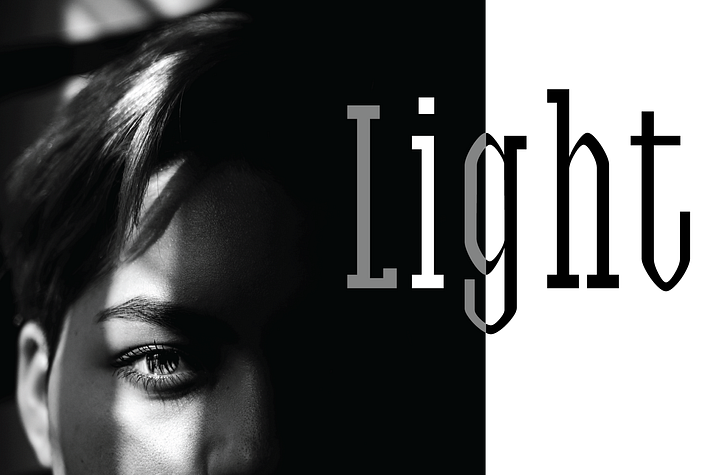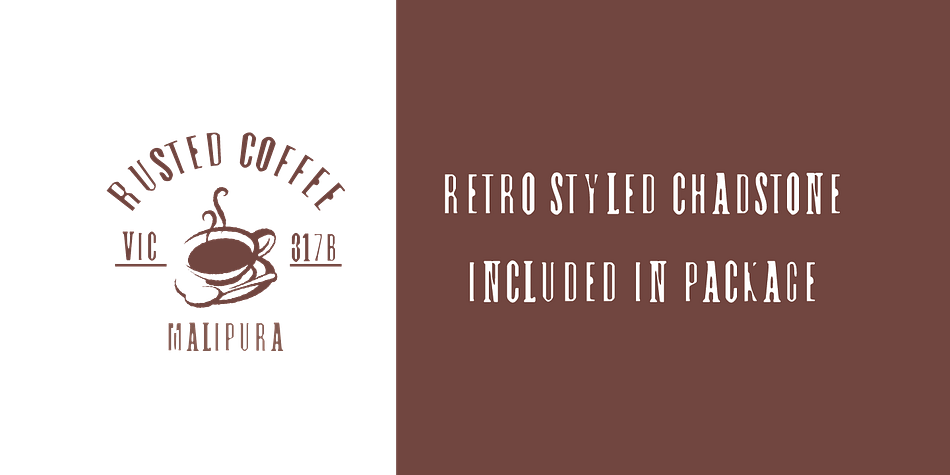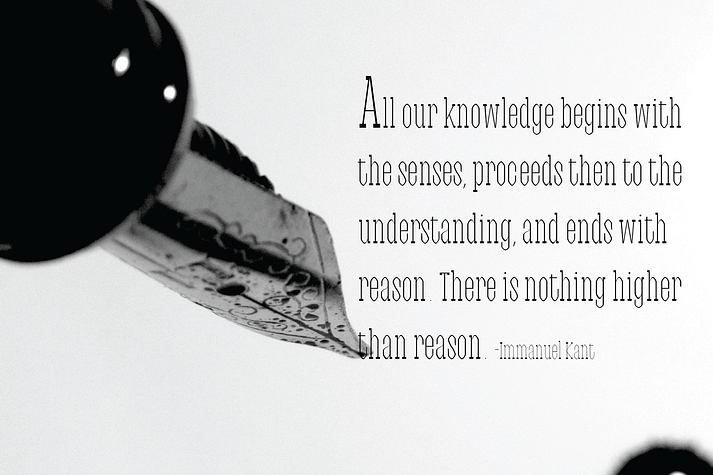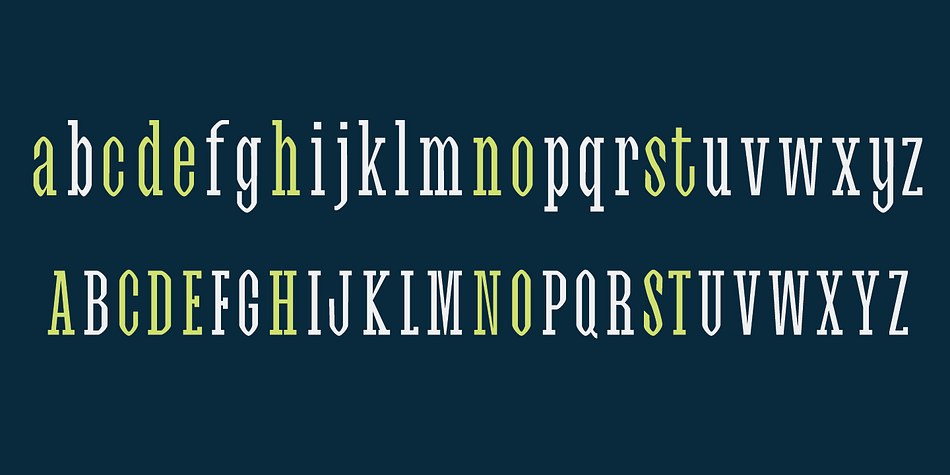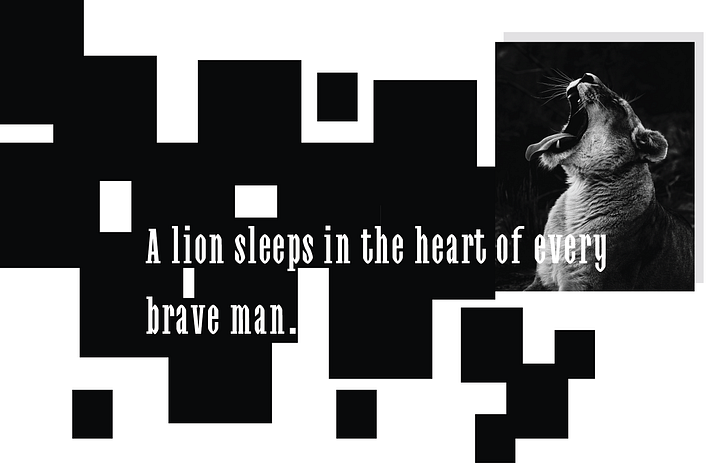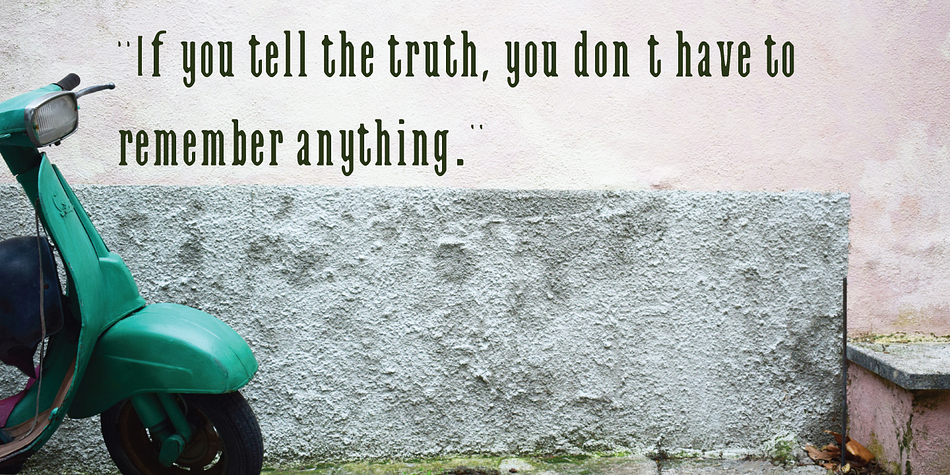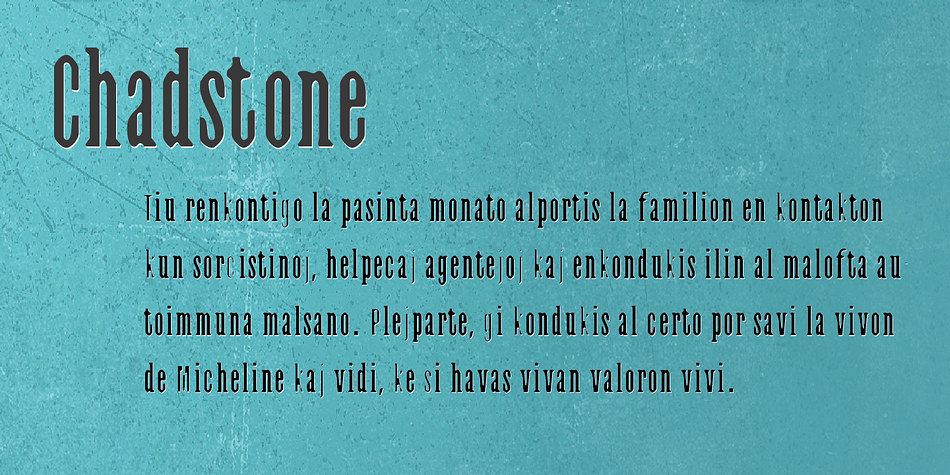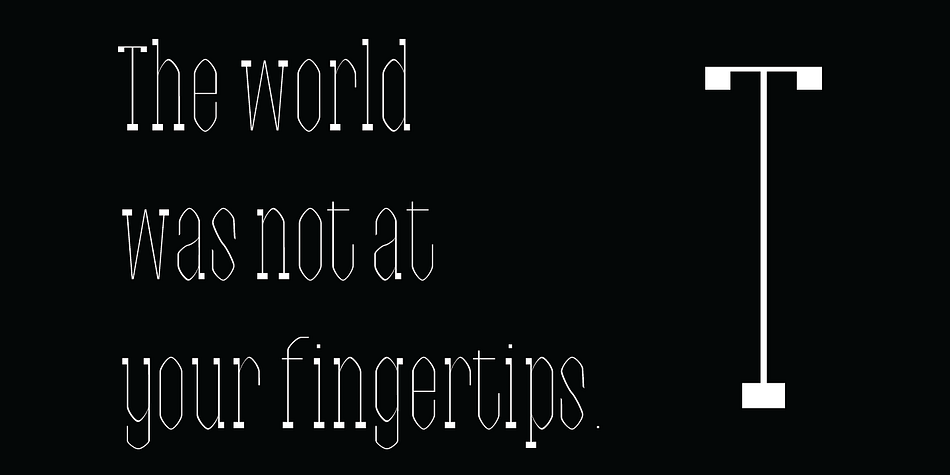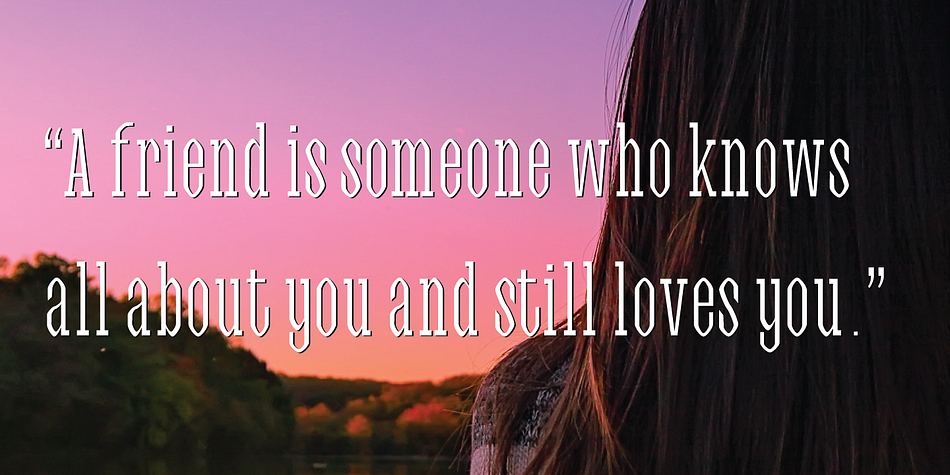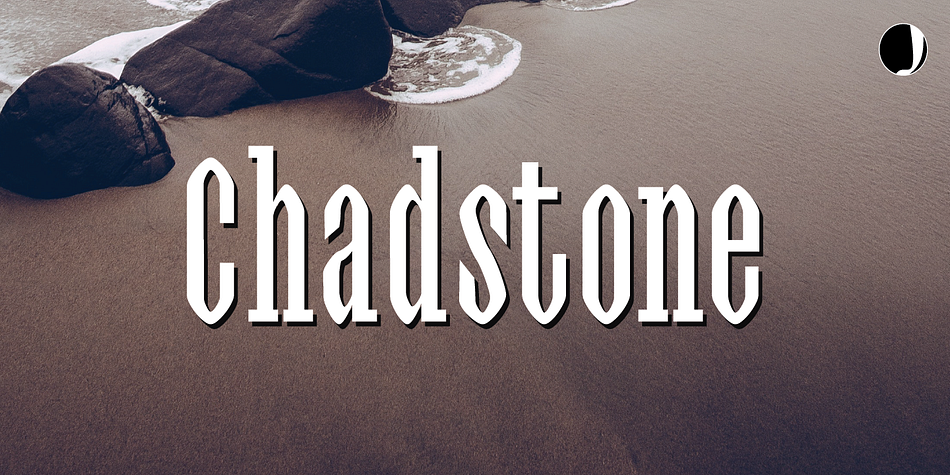
Designed by Mubarak Minhas, Chadstone is a display slab font family. This typeface has seven styles and was published by Jadugar Design Studio.
Chadstone is a modern slab based font family. This unique flavor will last forever on your project.
The family contains 7 fonts. This is ideal for your poster, title, shop front and for many options. The retro styled crafted with care and gives an old-aged styled feeling. That support many languages.
Foundry | Jadugar Design Studio |
Style | Display Slab |
Designer | Mubarak Minhas |